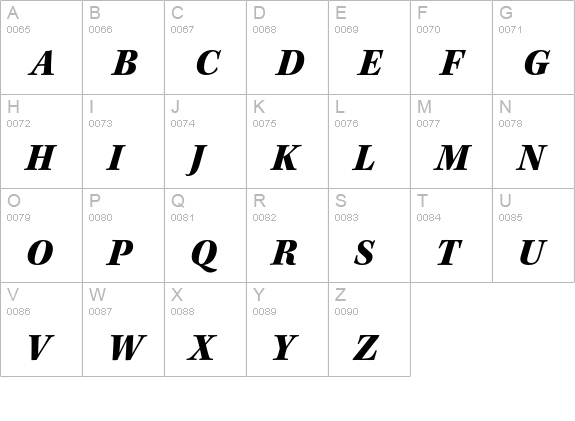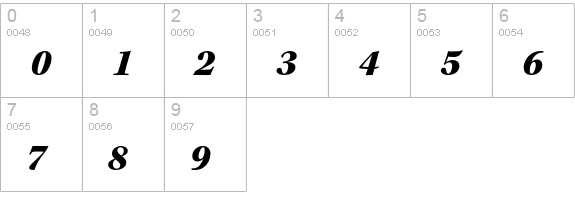
Kepler Std Black Italic Font Details
Kepler Std Black Italic is a maximum-weight, dramatic, italic variant in the Kepler typeface family \xE2\x80\x94 well suited to maximum-impact headlines, posters, and packaging.
Kepler Std Black Italic font is a strikingly bold and dynamic typeface that effortlessly combines elegance with a touch of modernism. Its sleek and slanted italic design adds a sense of drama and sophistication to any project, making it perfect for attention-grabbing headlines, stylish titles, or captivating logos. With its thick and powerful strokes, Kepler Std Black Italic font commands attention and exudes confidence. Its unique combination of sharp angles and graceful curves create a harmonious balance that is visually captivating. Whether used in print or digital media, this font is sure to make a lasting impression. One of the best features of Kepler Std Black Italic font is that it is free. Yes, you read that right! This extraordinary font is freely available to download at FontsMarket.com. Now, you can add a touch of elegance and professionalism to your designs without breaking the bank. Designed by renowned typographer Robert Slimbach, Kepler Std Black Italic font is a testament to his expertise and creativity in the field of typography. Its meticulous attention to detail and flawless execution make it a true masterpiece. The font's versatility allows it to be used in a wide range of design projects, from branding and advertising to editorial layouts and web design. So, why wait? Go ahead and download Kepler Std Black Italic font from FontsMarket.com today. Let its bold and italic presence elevate your designs to new heights. Whether you're a graphic designer, a creative professional, or simply someone with a passion for beautiful typography, this font is a must-have in your collection. Experience the power and beauty of Kepler Std Black Italic font and transform your designs into works of art.